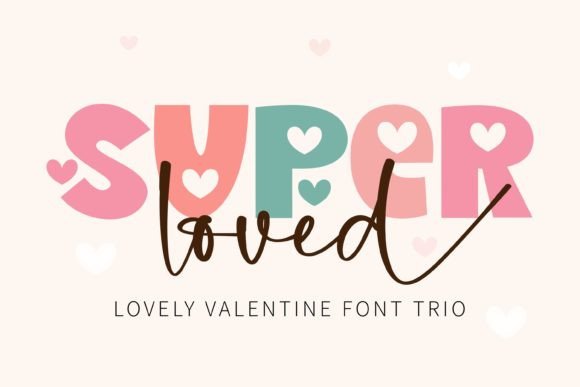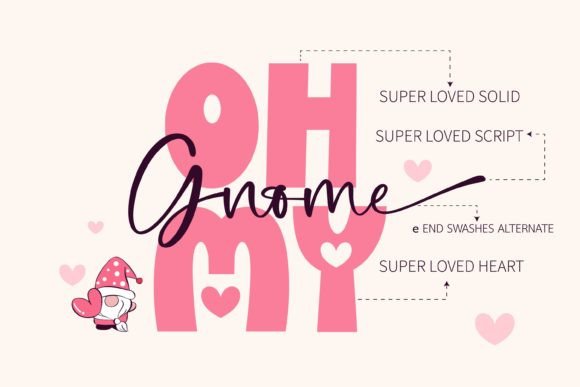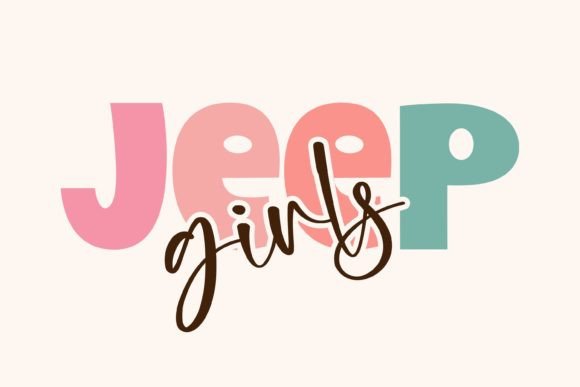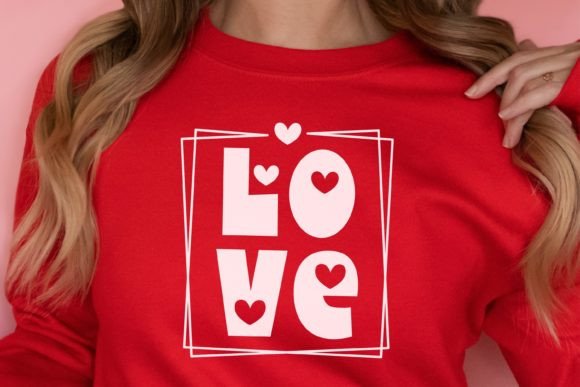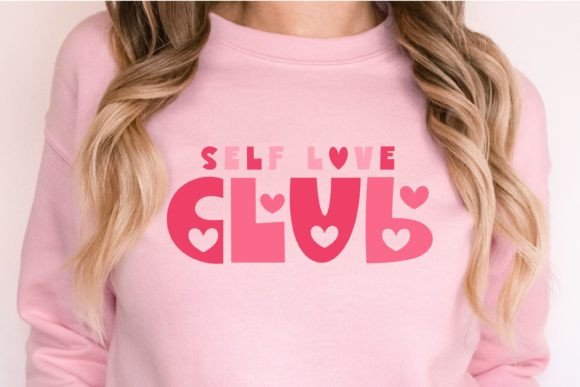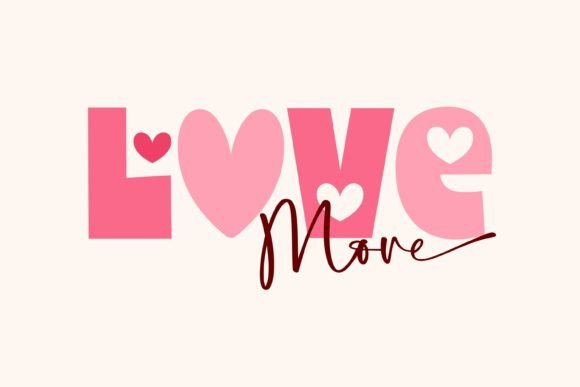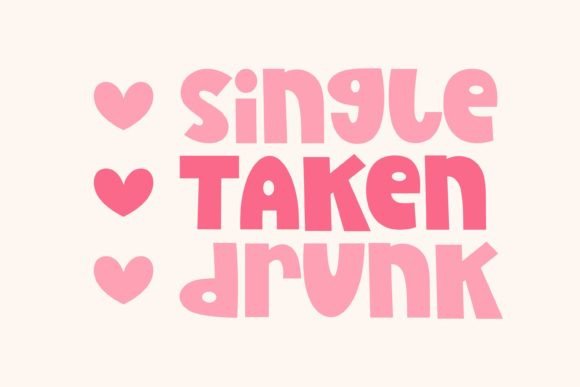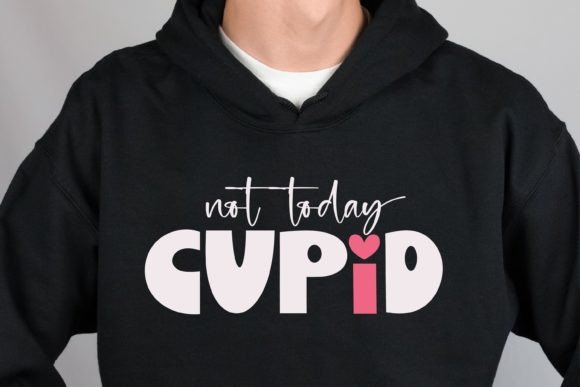
Super Loved Font
Super Loved is a trio-style handwritten, display, and decorative font that feels equally charming and delicate. Fall in love with its incredibly versatile style and use it to create gorgeous wedding invitations, beautiful stationary art, eye-catching social media posts, and much more!